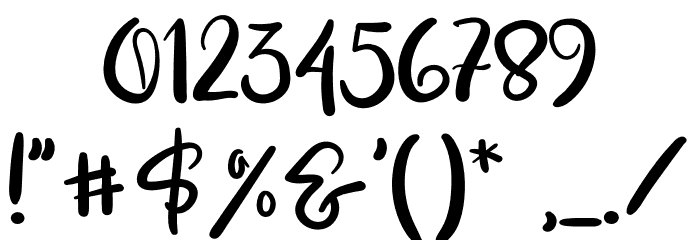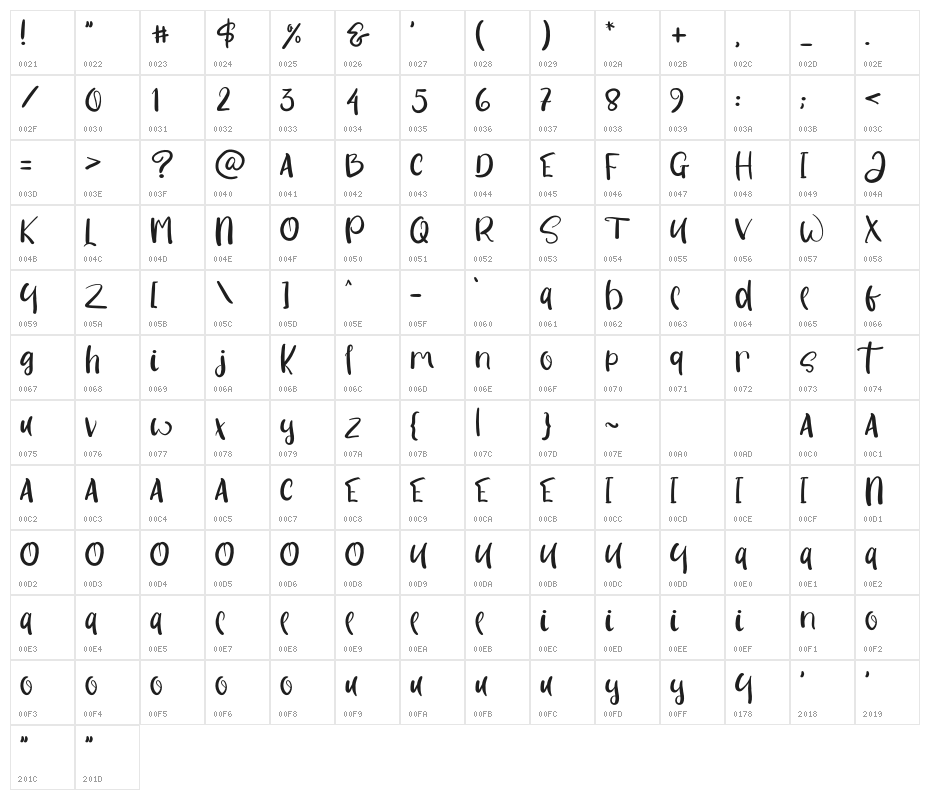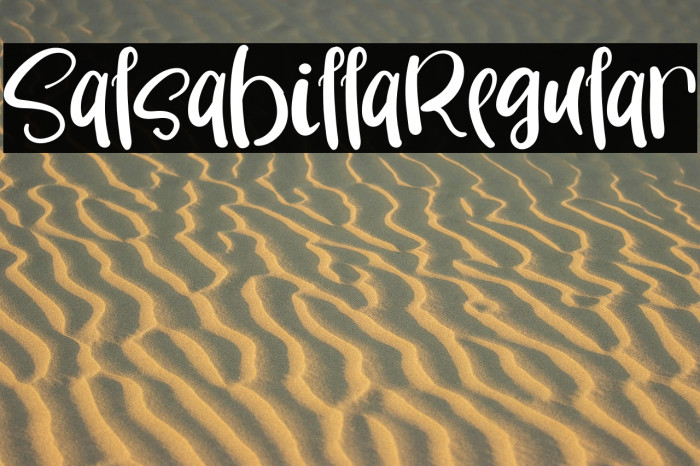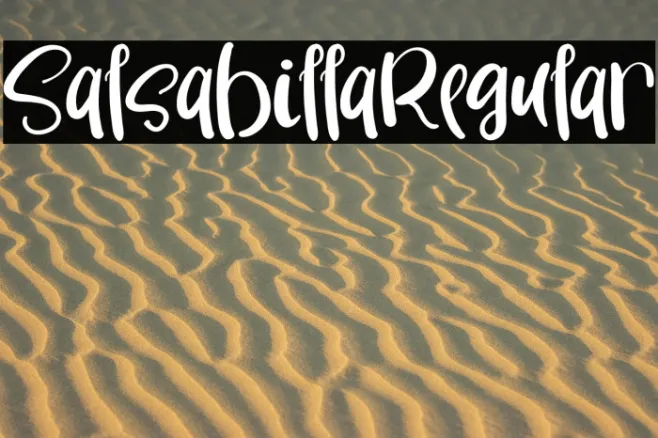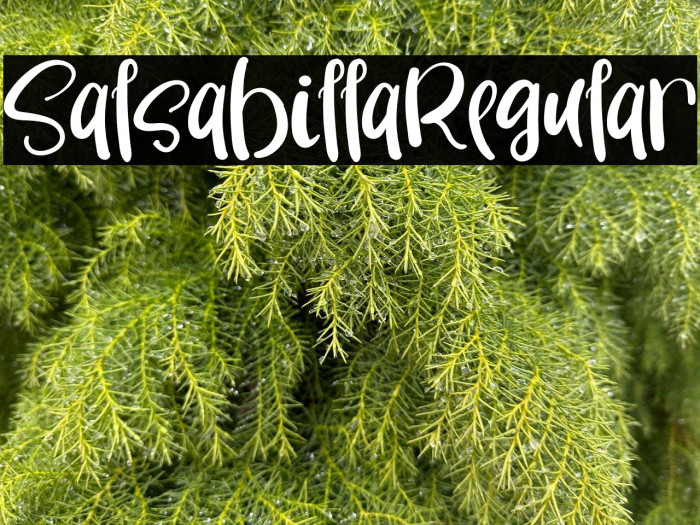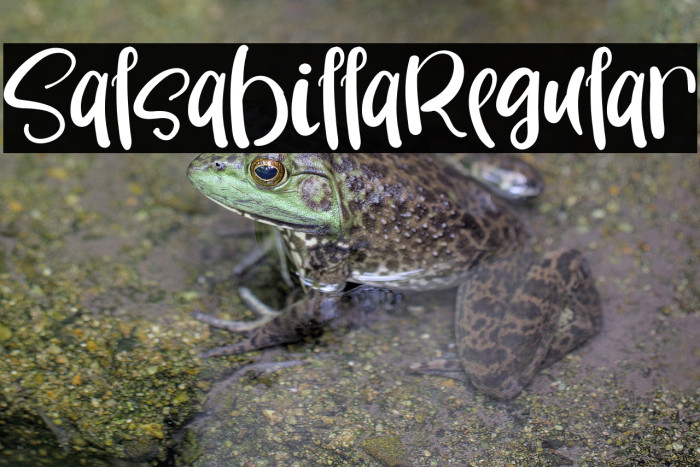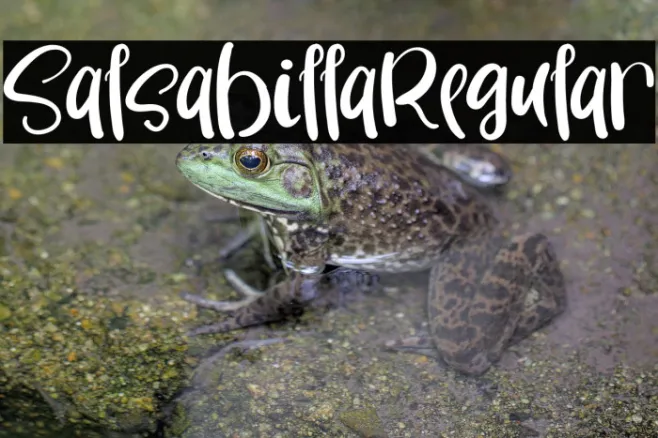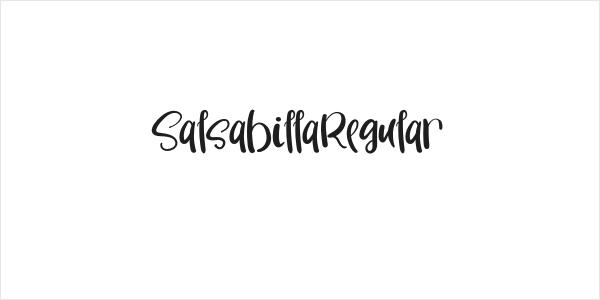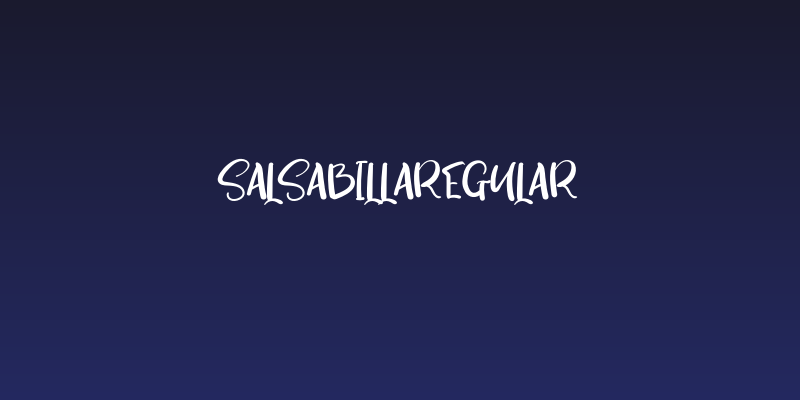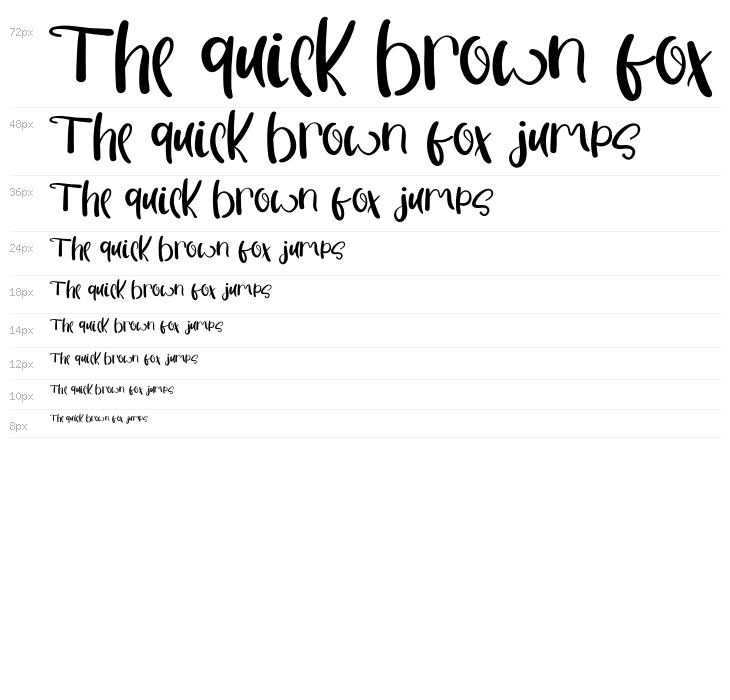
SalsabillaRegular Font
SalsabillaRegular Description
This font features a playful and energetic script style, characterized by its bold and flowing strokes. The letters are interconnected with a smooth, cursive flair, giving it a handwritten appearance. The uppercase letters are slightly larger and more pronounced, while the lowercase letters maintain a consistent flow. The numbers and special characters are designed to match the overall style, with a similar boldness and fluidity. This font exudes a sense of creativity and spontaneity, making it ideal for projects that require a personal touch.